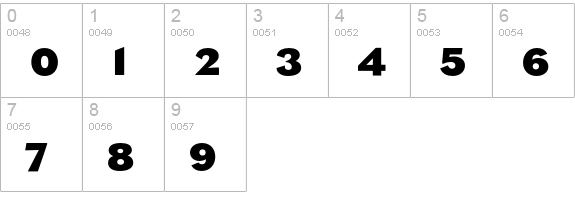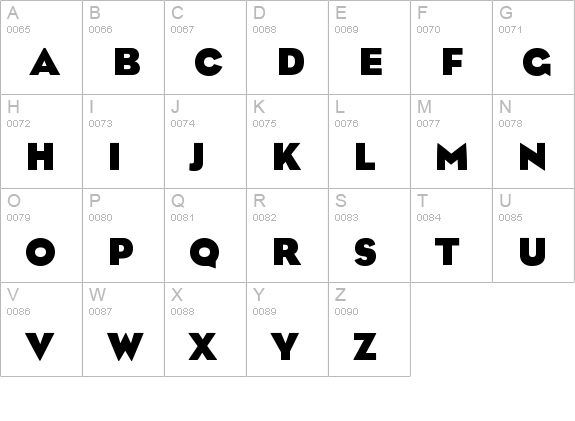
Eagle-Bold is a strong, high-contrast variant in the Eagle typeface family \xE2\x80\x94 well suited to headlines, attention-grabbing titles, and strong calls-to-action.
Eagle-Bold is a bold and powerful font that exudes strength and confidence. With its clean lines and sharp edges, this font is perfect for making a bold statement in any design project. Whether you are creating a logo, a poster, or a headline, Eagle-Bold will command attention and leave a lasting impression. What sets Eagle-Bold apart is not only its striking appearance, but also the fact that it is free. That's right, this incredible font is freely available to download at FontsMarket.com. Now, you can elevate your designs without having to worry about breaking the bank. Eagle-Bold's versatility is another reason why it's a must-have font. It can be used for both modern and classic designs, adding a touch of elegance and sophistication to any project. Its bold and confident nature makes it ideal for branding, packaging, and advertising materials. The characters in Eagle-Bold are meticulously crafted, ensuring legibility and readability even at smaller sizes. Each letter is designed to stand out, making a strong visual impact. Its bold weight and clean lines make it highly versatile and suitable for various design styles. With Eagle-Bold, you have the freedom to express your creativity without limitations. Download this font for free at FontsMarket.com and unlock a world of possibilities for your design projects. Stand out from the crowd and make a statement with the bold and powerful Eagle-Bold font.